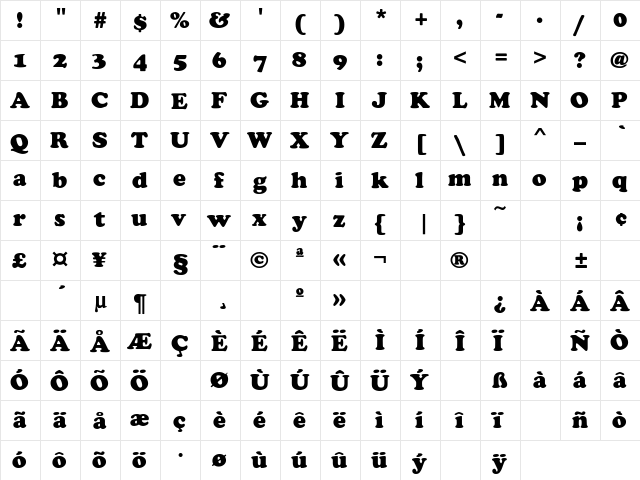
Gooseberry Heavy Regular
Design Context for Gooseberry Heavy Typeface
Gooseberry Heavy is a composed and adaptable typeface that performs quietly and consistently across a wide range of design contexts.